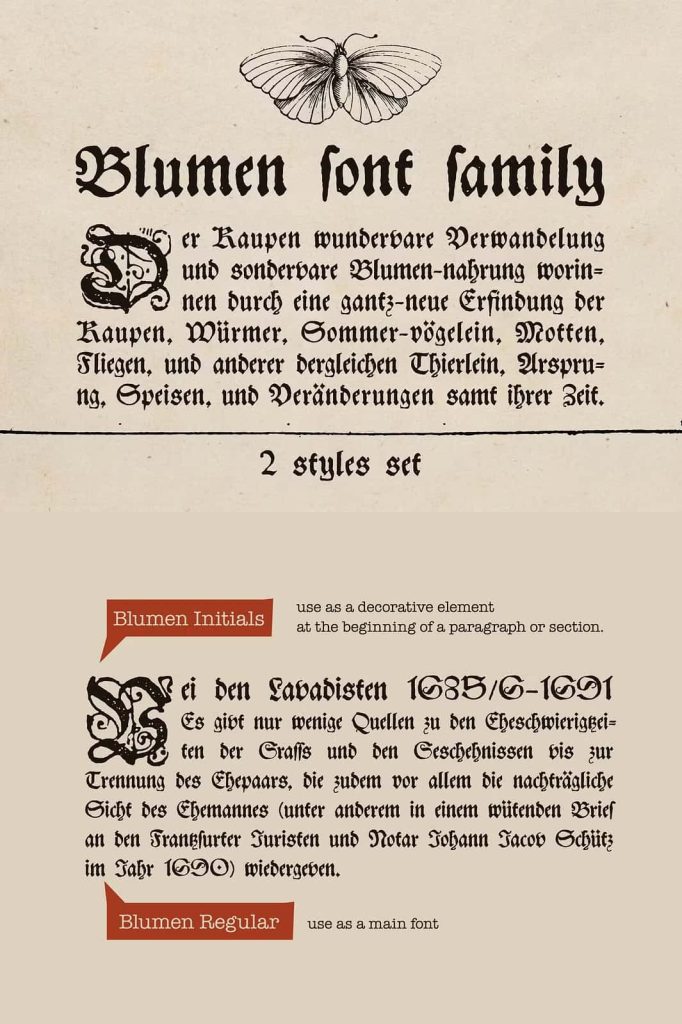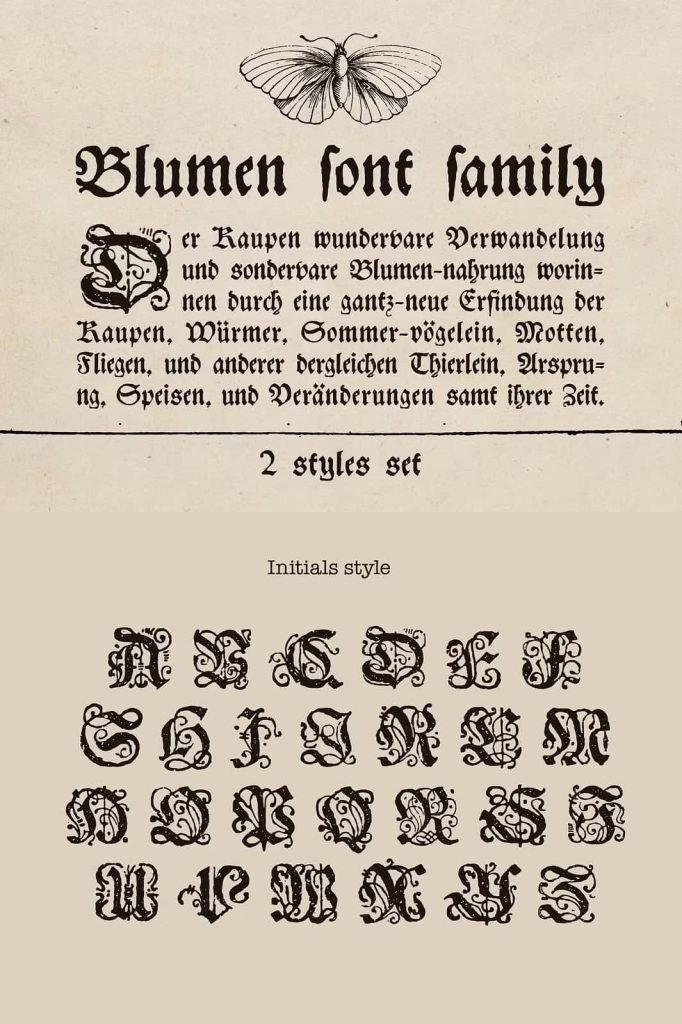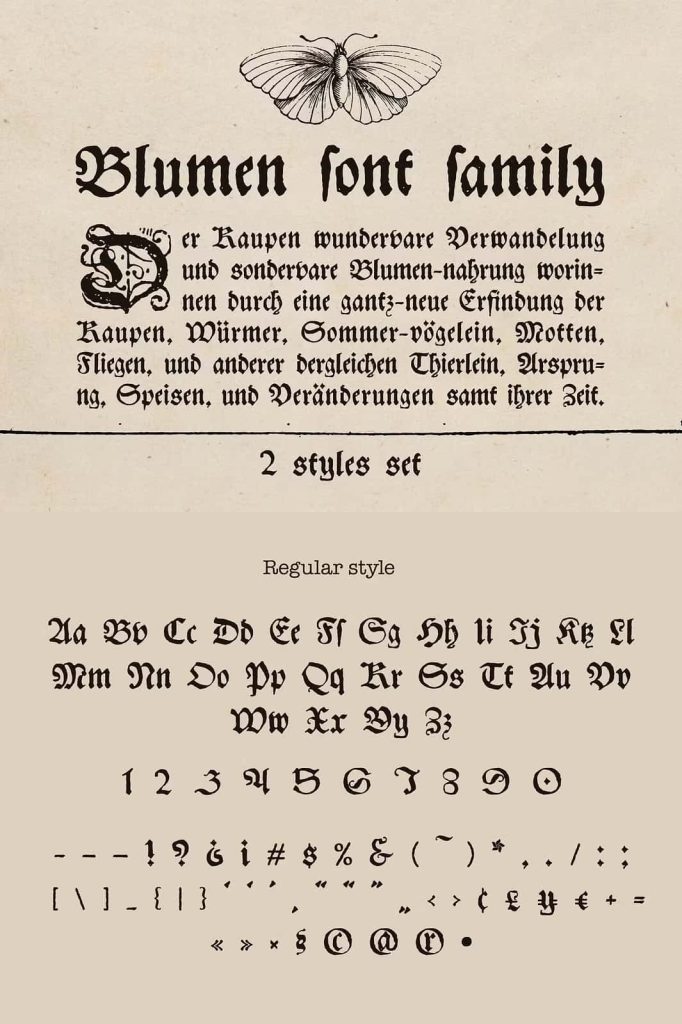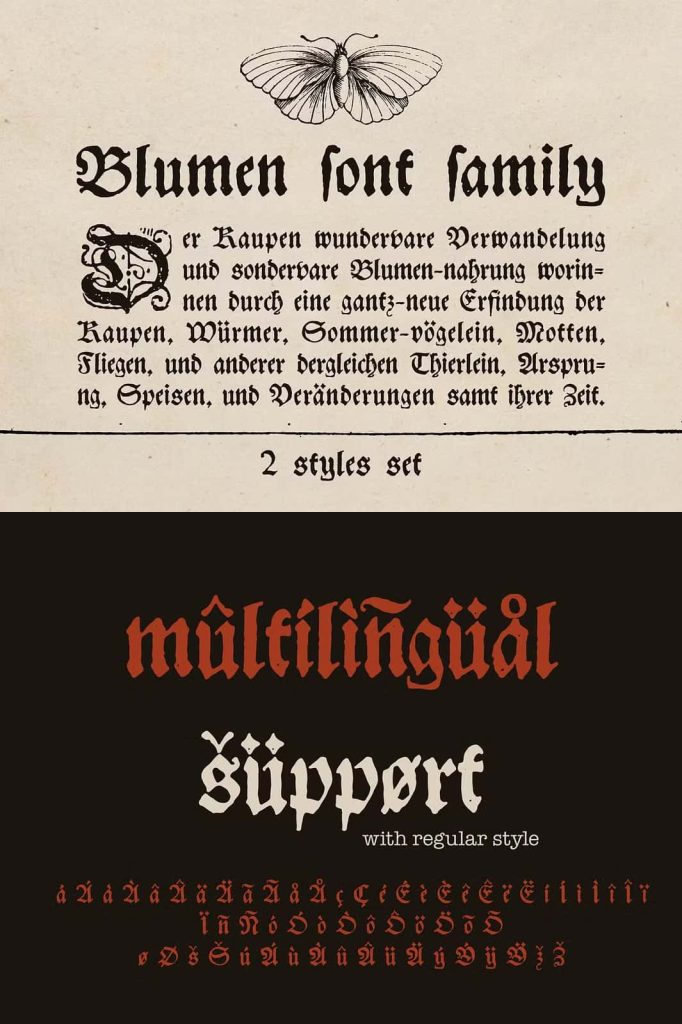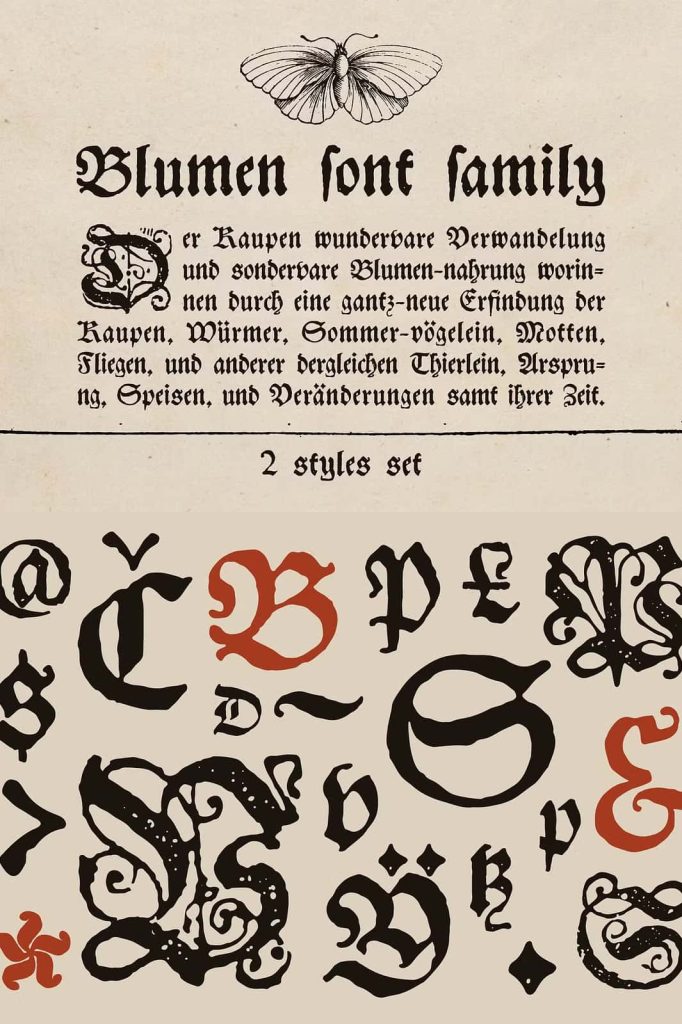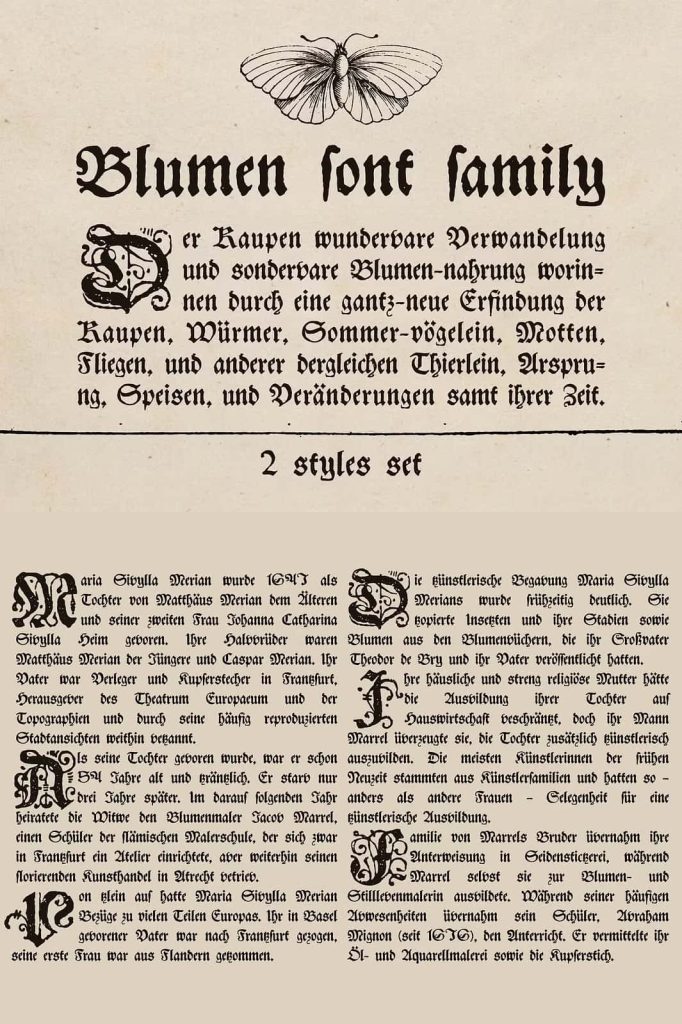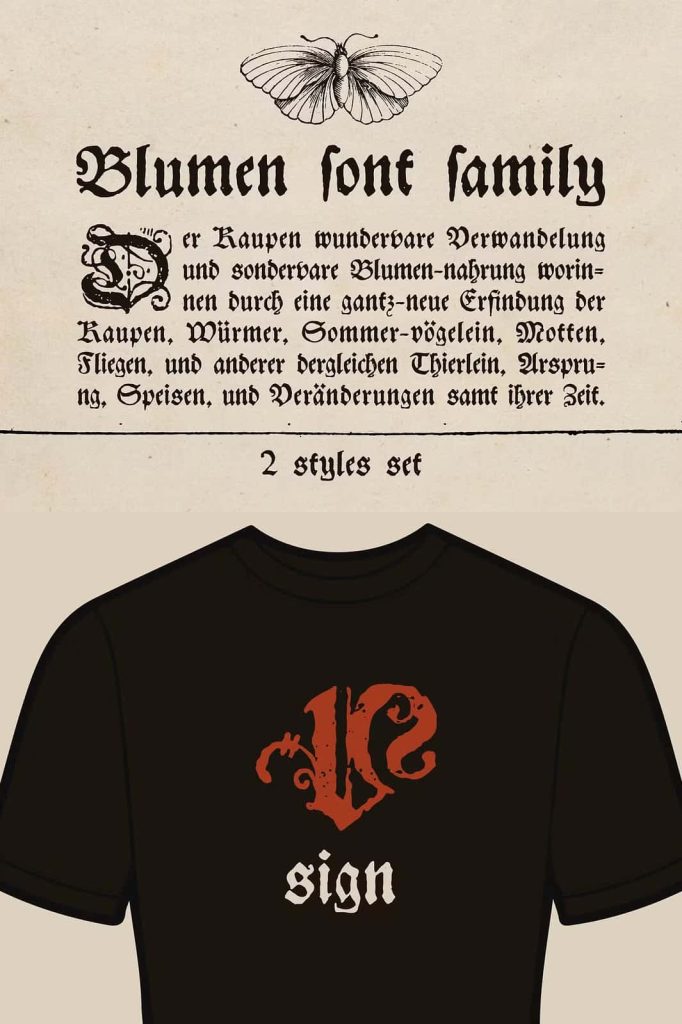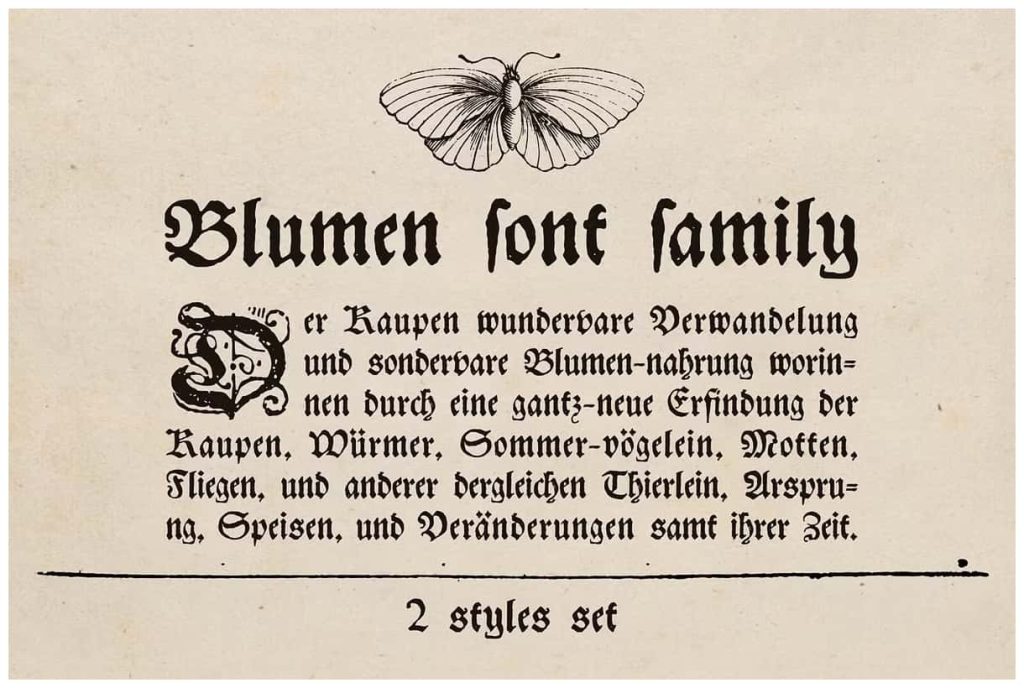
Blumen blackletter font familyleastedJune 3, 2025Fonts This font family based on vintage German book called “Der Raupen wunderbare Verwandlung und sonderbare Blumennahrung.” Download